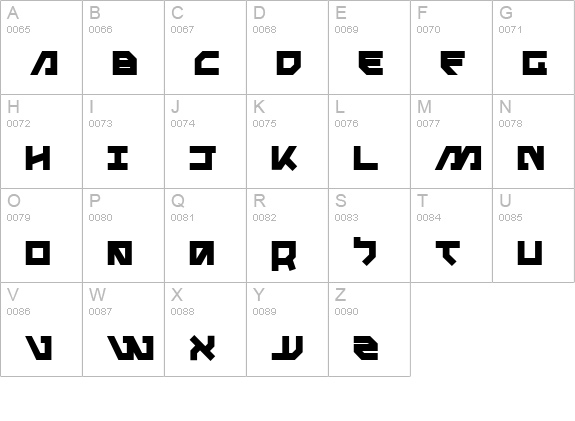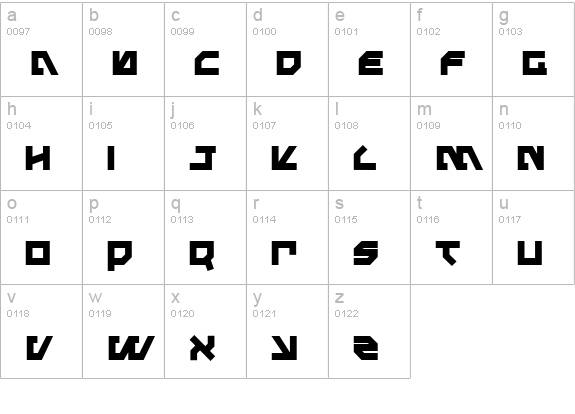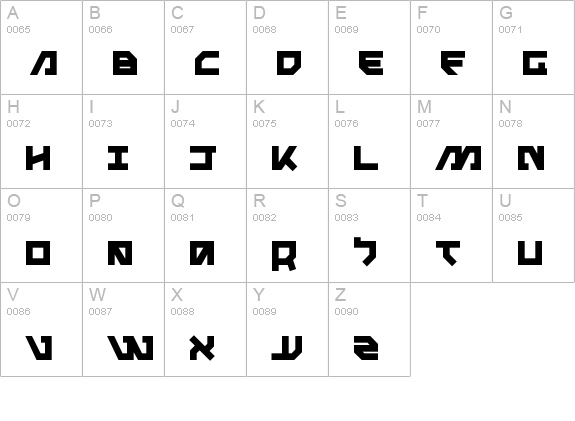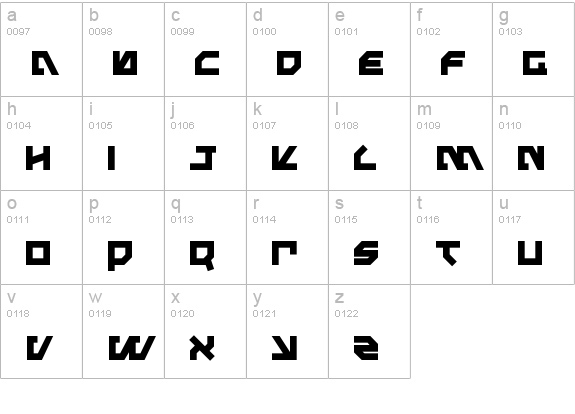
Metal Storm Bold is a strong, high-contrast variant in the Metal typeface family \xE2\x80\x94 well suited to headlines, attention-grabbing titles, and strong calls-to-action.
Metal Storm Bold font is a striking and powerful typeface that exudes a sense of strength and boldness. With its sharp edges and heavy weight, this font is perfect for making a statement in any design project. Whether you're looking to create eye-catching headlines or impressive logos, Metal Storm Bold is sure to grab attention. The best part? Metal Storm Bold font is available for free download at FontsMarket.com. This means you can easily add this impressive font to your collection without breaking the bank. Don't miss out on the opportunity to enhance your designs with the impactful Metal Storm Bold font today.